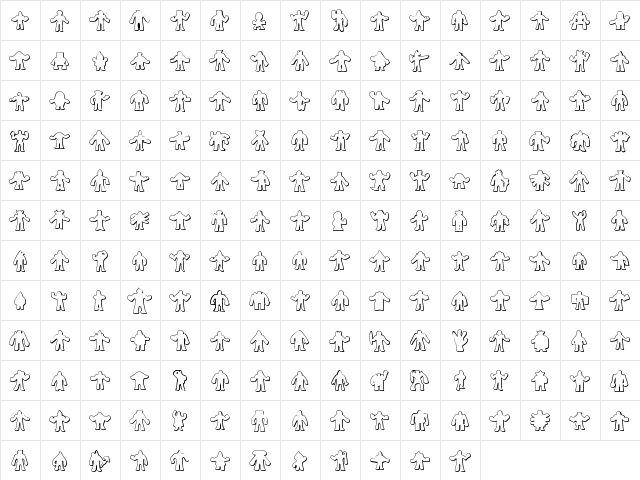
Kinnihuman 3D Regular
Design Context for Kinnihuman 3D Typeface
Kinnihuman 3D is a composed and adaptable typeface that performs quietly and consistently across a wide range of design contexts.